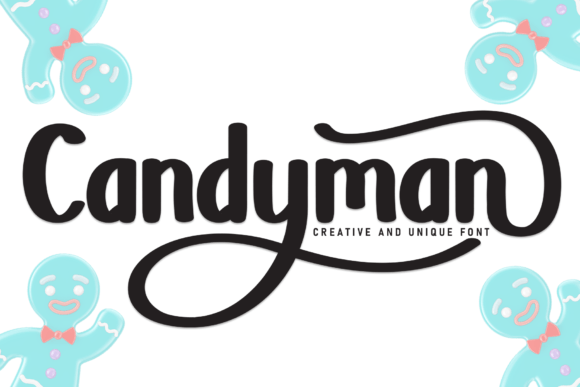
Behold, the saccharine allure of Candyman Font – a script font so delectable, it'll make your designs sing! Prepare to be swept off your feet by its sweet and friendly handwritten charm. Picture this: a Christmas card adorned with Candyman's graceful strokes, conveying heartfelt messages with a touch of whimsy. Or perhaps, a wedding invitation, where each letter dances with elegance, inviting guests to a day filled with love and joy.
With Candyman Font, the possibilities are endless. Its playful nature makes it perfect for any design seeking a dash of fun and cheer. From playful posters that demand attention to eye-catching social media graphics that pop, Candyman Font is your trusty companion, transforming the ordinary into extraordinary.
Unleash your creativity and let Candyman Font take center stage. Its versatility knows no bounds, effortlessly adapting to your unique vision. Whether you're a seasoned designer or just starting, Candyman Font is your ultimate creative ally, ready to turn your ideas into visual masterpieces. Experience the magic of Candyman Font today and discover a world where words dance, emotions ignite, and designs come alive!